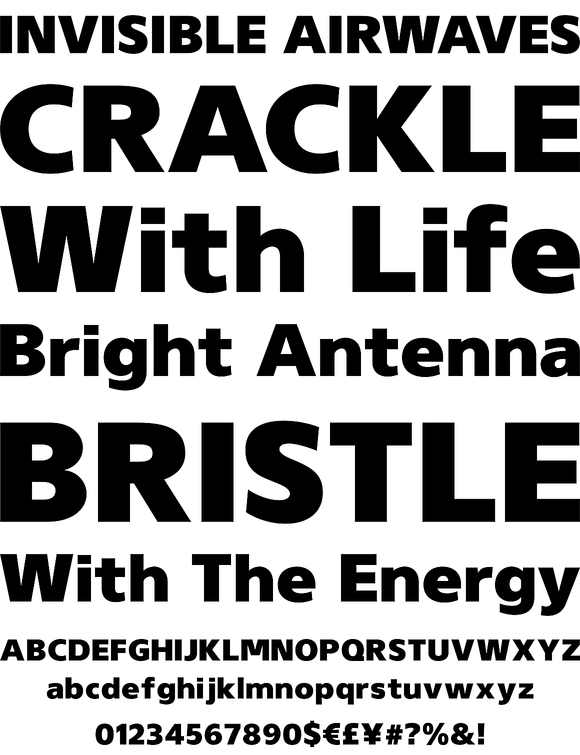
Gelder Sans
A clean modern sans serif typeface. The balanced proportions of each character demonstrate great legibility at both small and large scale. The distinctively open apertures further improves visibility when used across the web and hand held devices. Details include 9 weights, a full character set, manually edited kerning and Euro symbol.